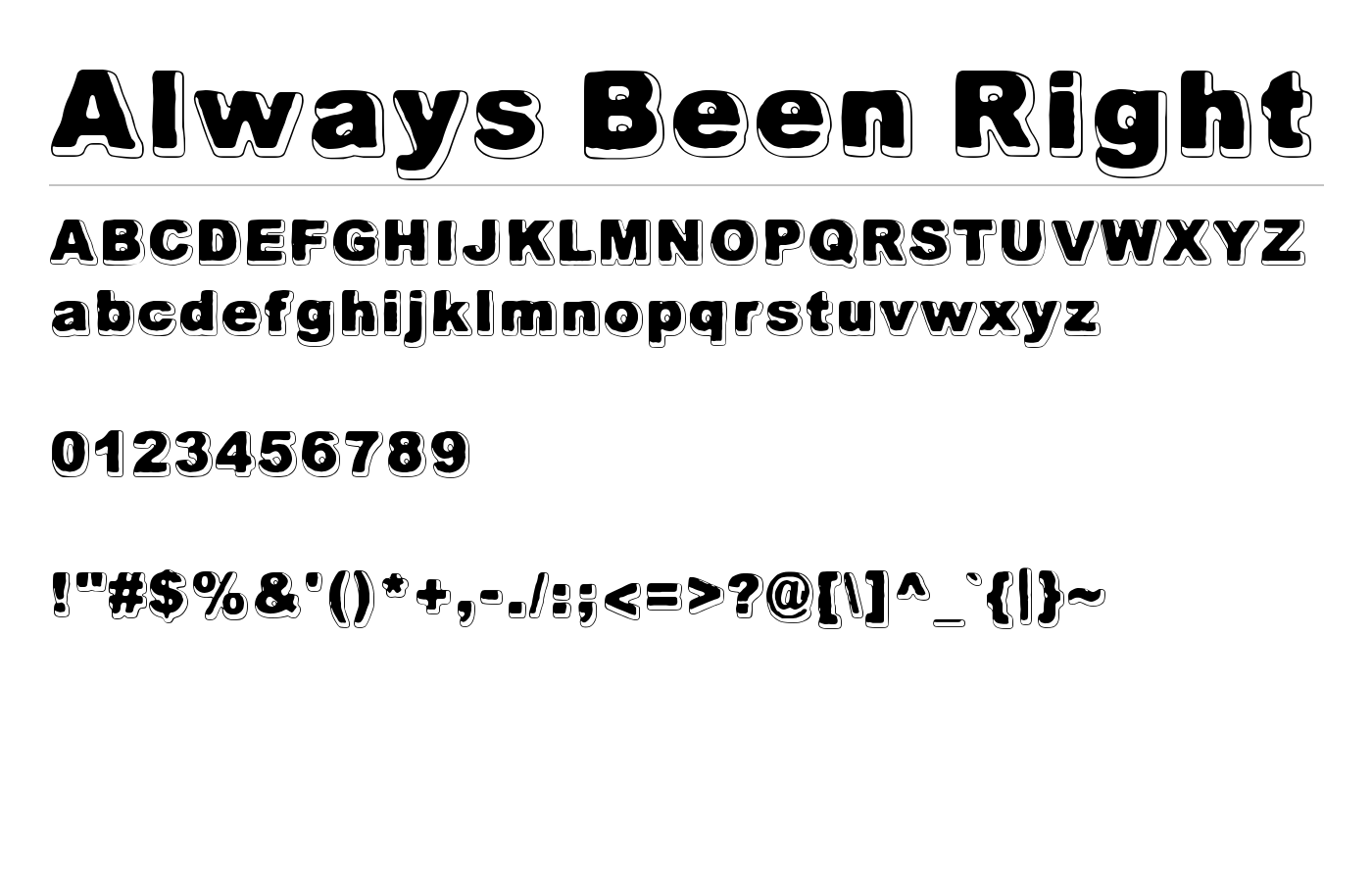
Always Been Right is a bold, playful sans serif font featuring thick, rounded letterforms with a layered shadow effect that adds depth and a fun, retro vibe. Its chunky, friendly shapes make it ideal for eye-catching headlines, branding, or packaging where a lively and approachable tone is desired. This font works especially well for creative projects looking to convey energy and charm in a casual, yet confident style.
Always Been Right Font
About Always Been Right Font
| Font family | Always Been Right Font |